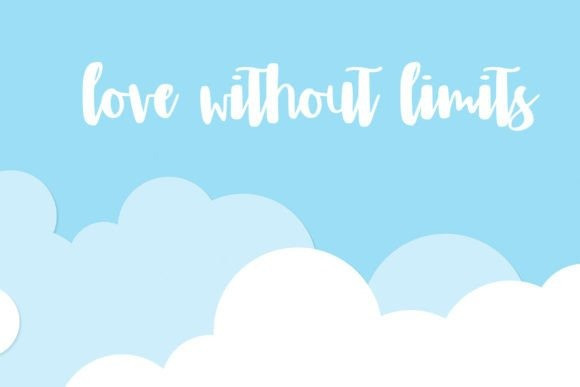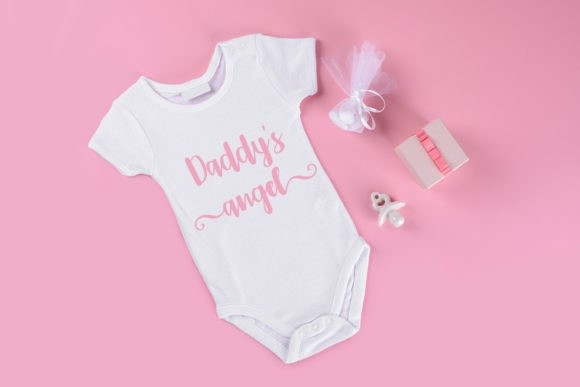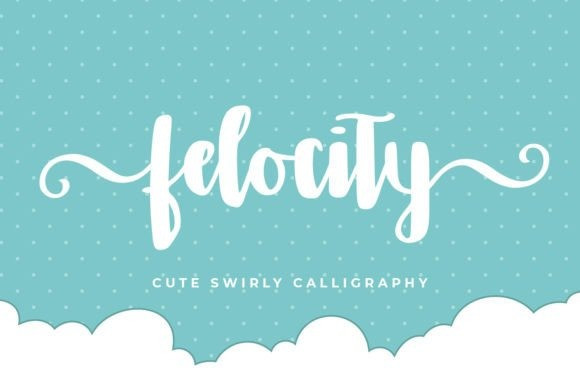
Felocity Font
Felocity Font is a bold and gorgeous script font. This typeface will enhance your craft with little effort, making your product stand out from the competition.